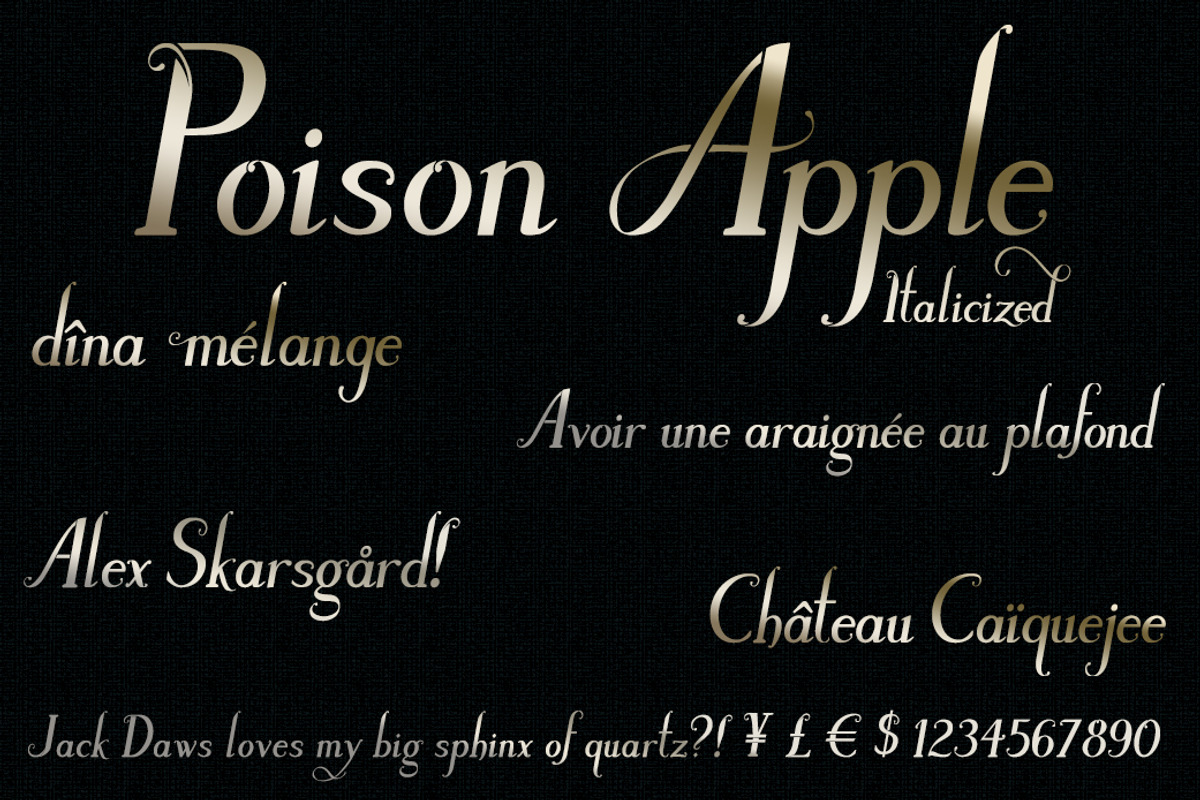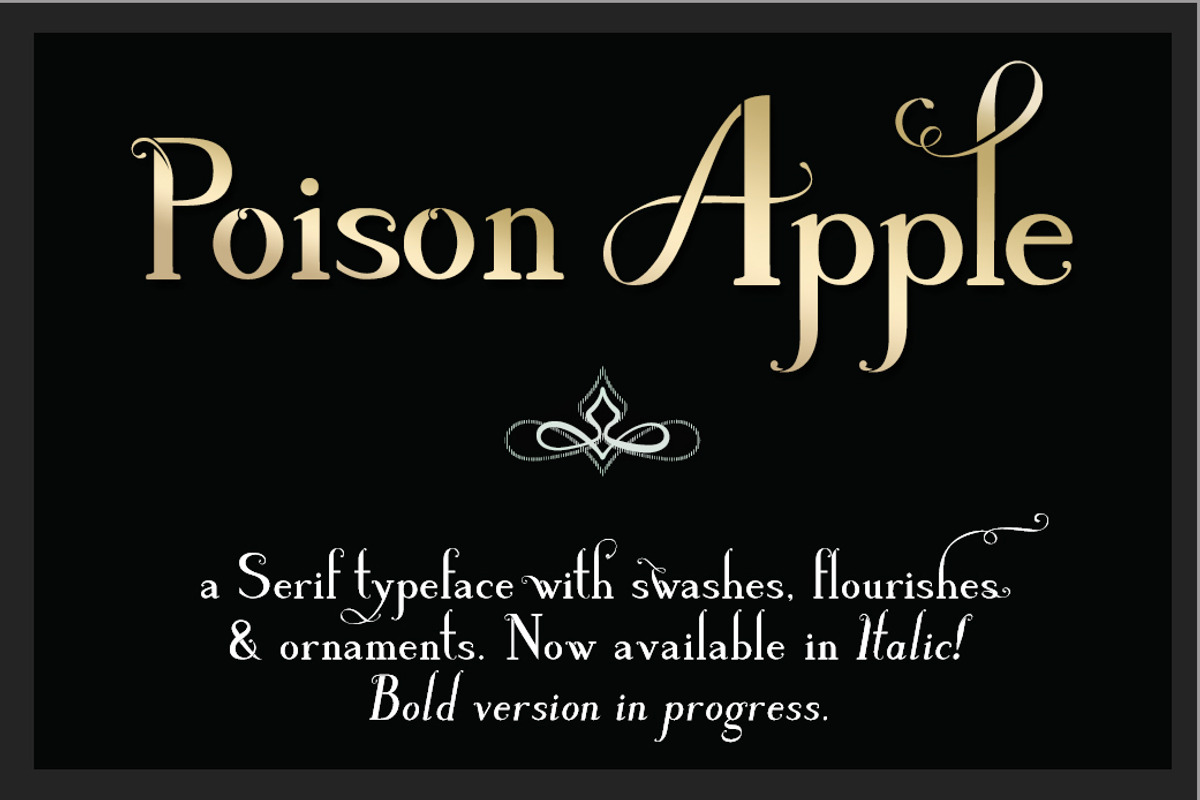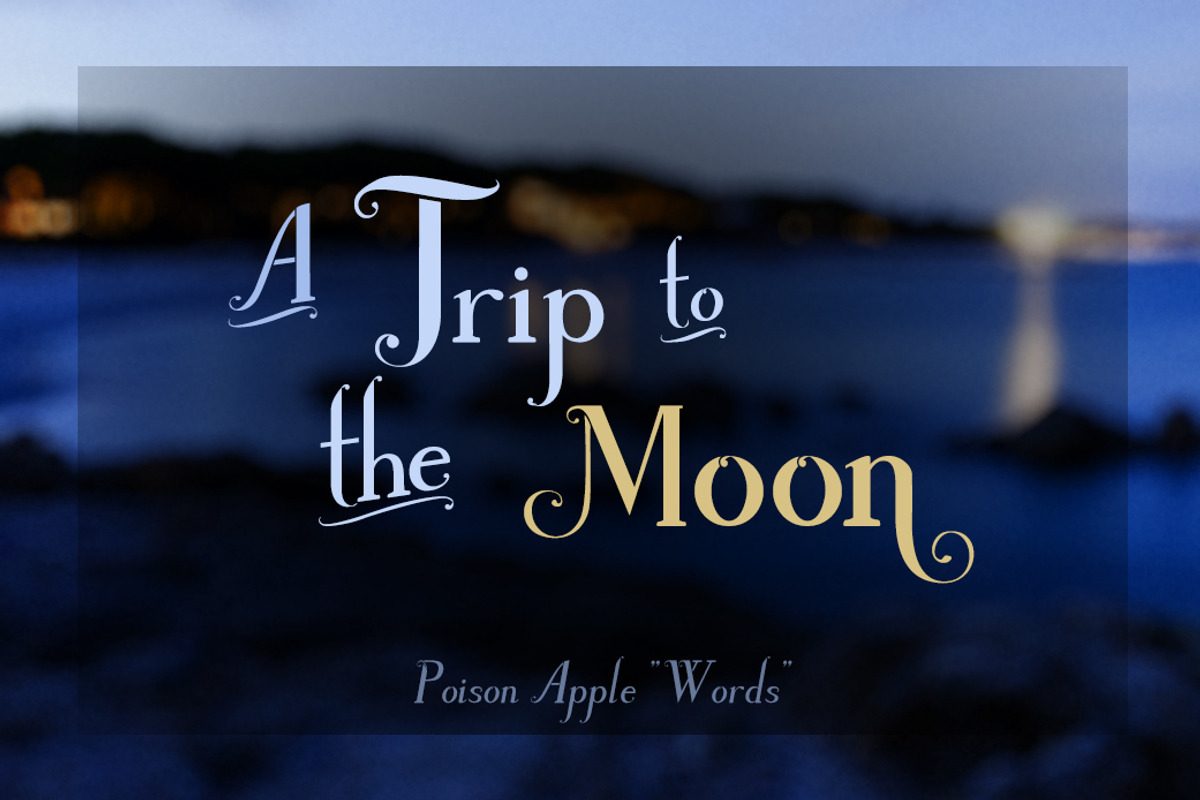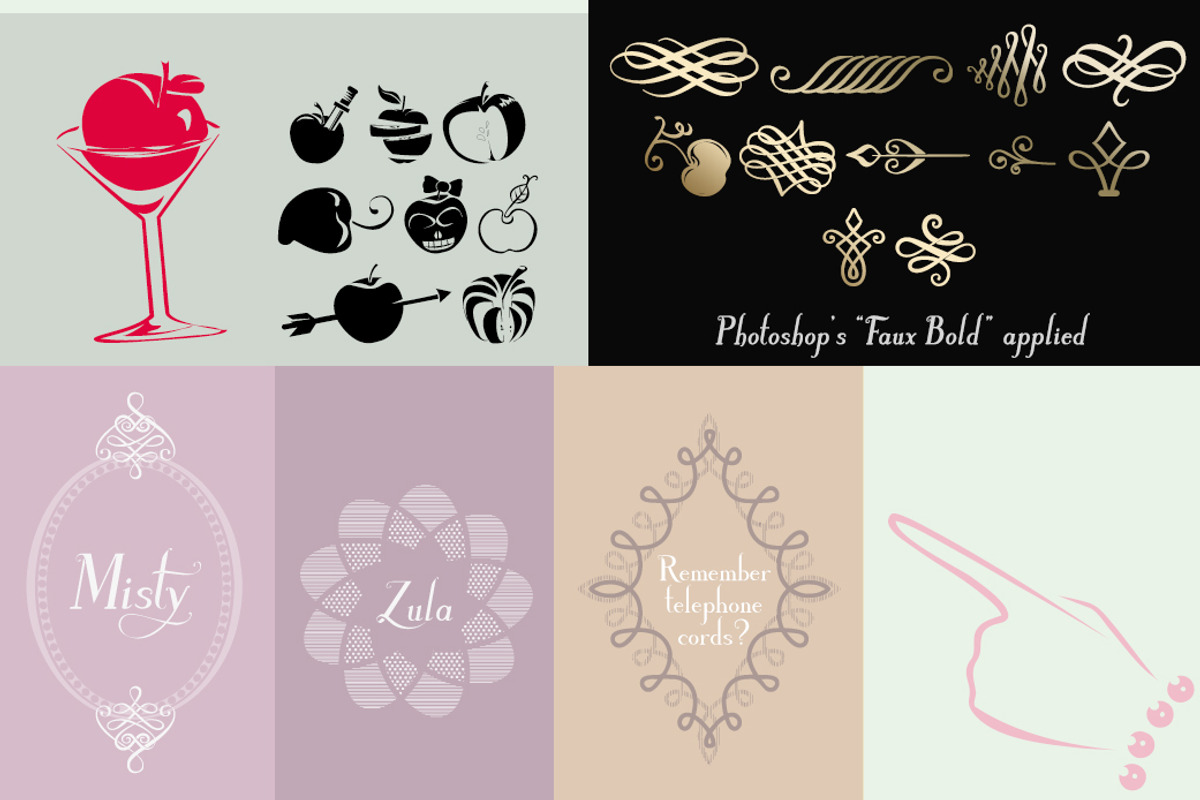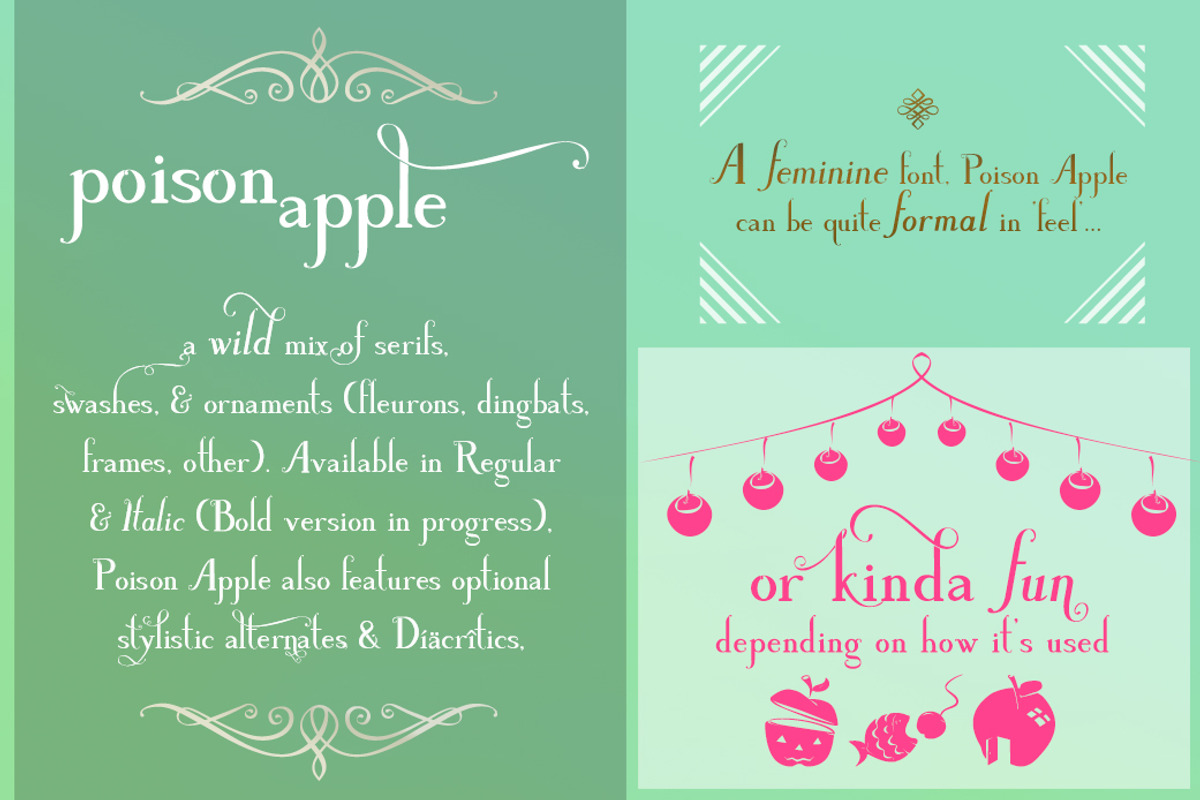
Poison Apple: a Serif & Script font
Poison Apple: a Serif & Script font by Violet on CreativeMarket is a font selected for branding, posters, packaging, typography.
- If you ever forget which words are included, just type "words" (with no quotes) in the program.
- Serifs, swashes & stylistic alternates (optional), flourishes, ornaments (frames,florets & fleurons) come together in this new font family,
- Words will work with any program that automatically converts characters into ligatures, such as Photoshop, (sorry "Words" doesn't show below
- The feature works like ligatures, & capitalized versions are also available (so there's "for" and "For", "By" and "by" and so on).
- Some of Poison Apple's characters come with 2 stylistic alternates, & can be accessed either via the "Stylistic Alternates" button in Photos
- In this latest update, I also added a stylistic Alternate for the ampersand (&) glyph.
Why Poison Apple: a Serif & Script font is worth a look
Poison Apple: a Serif & Script font by Violet on CreativeMarket fits naturally into Branding, posters, packaging, typography.